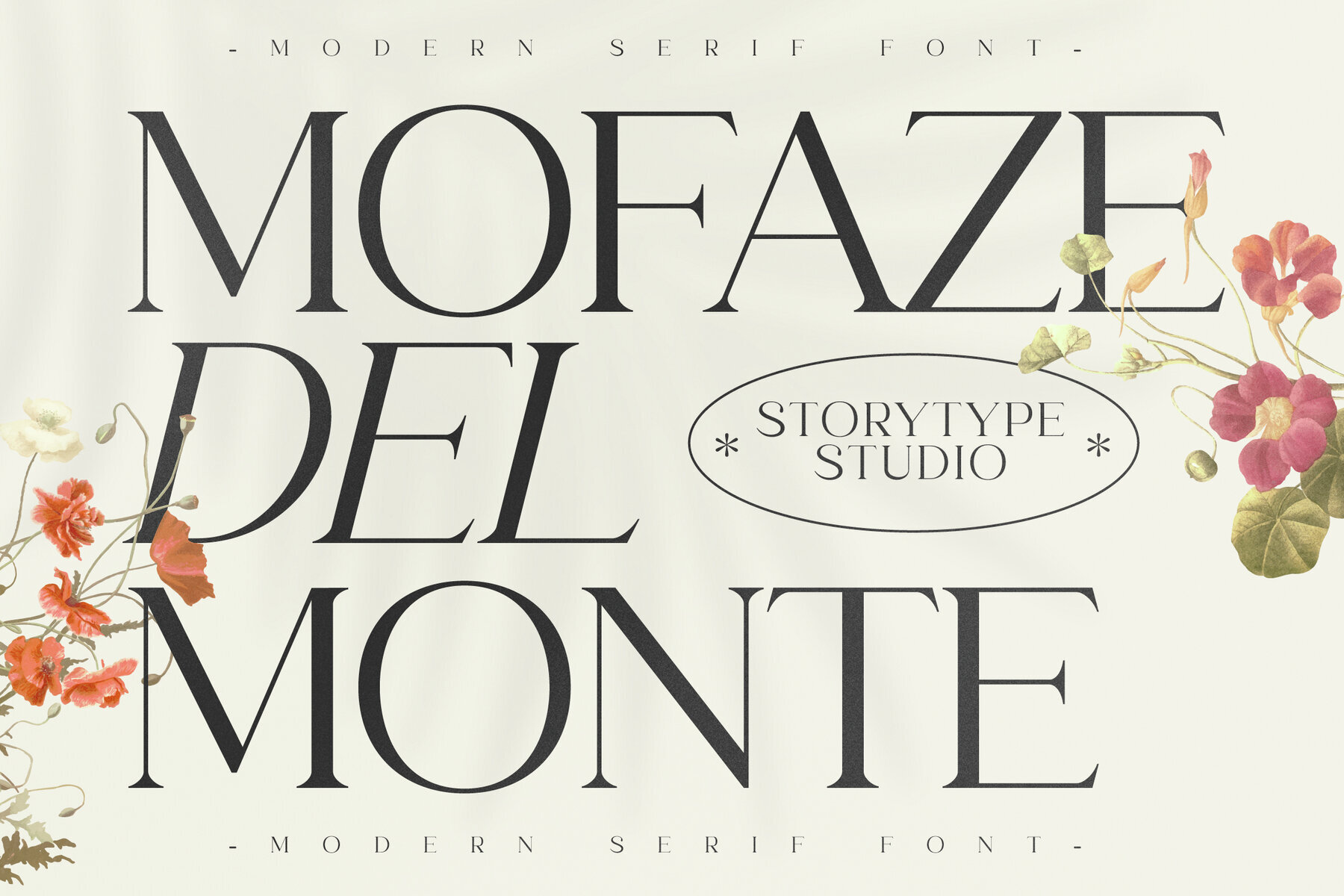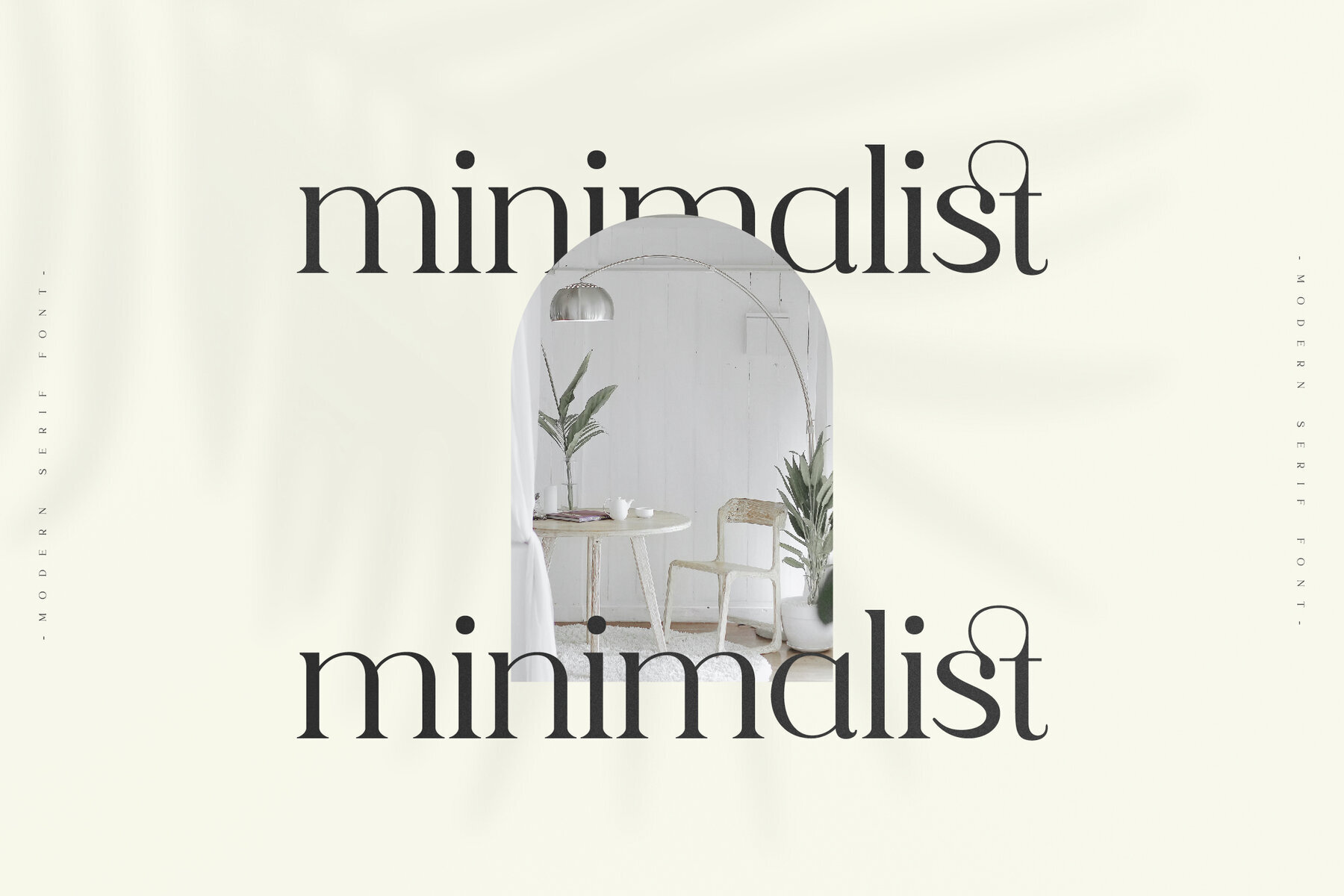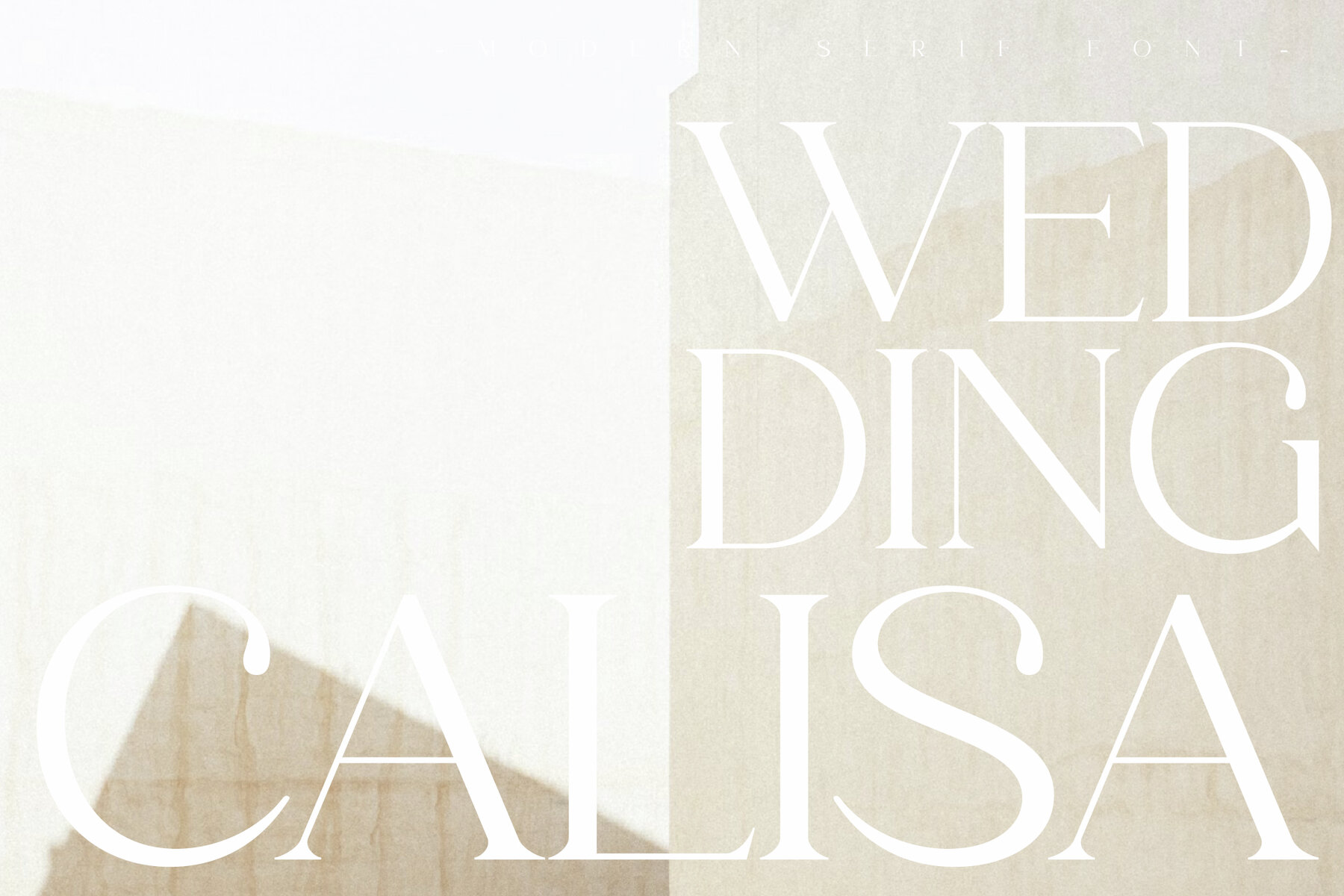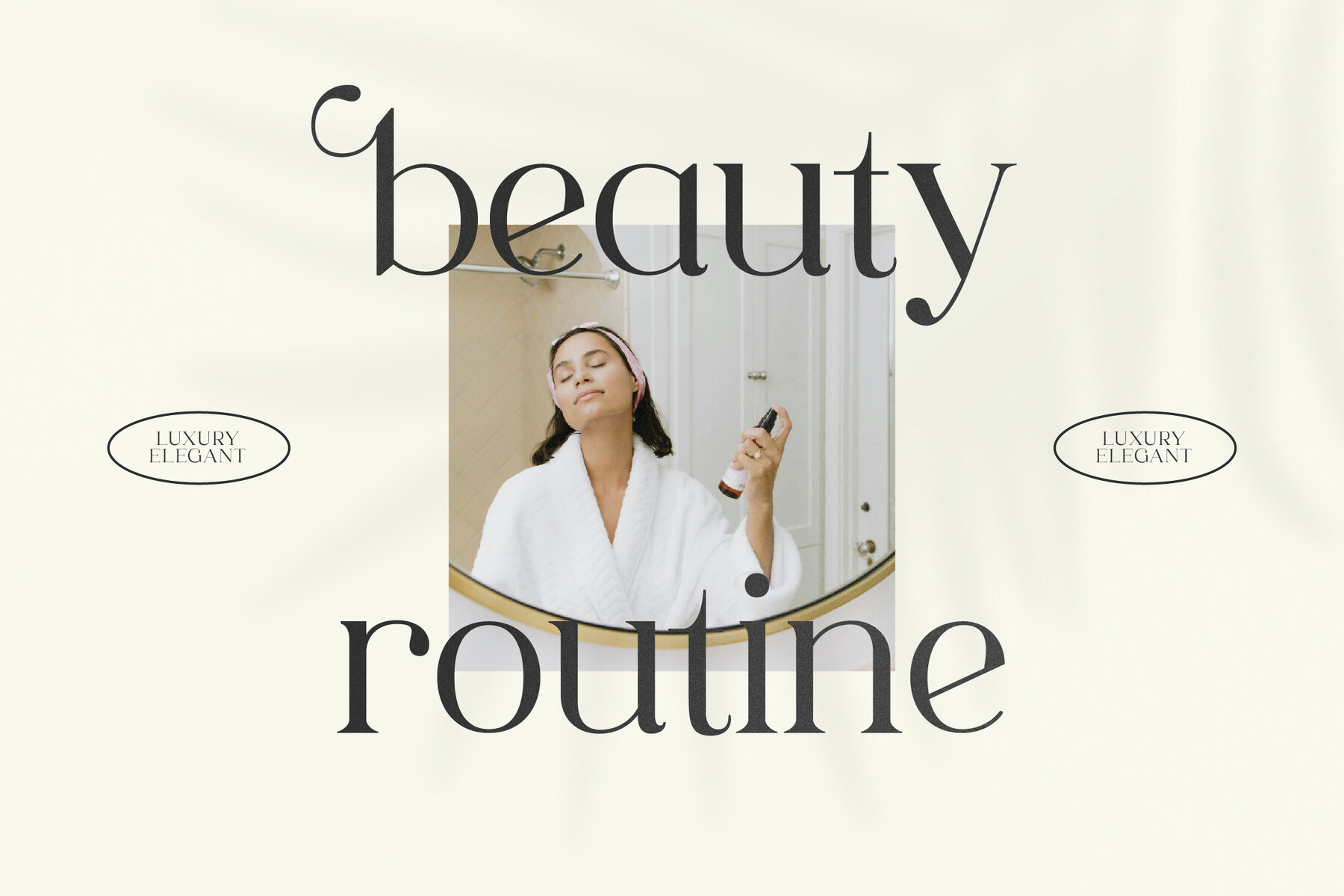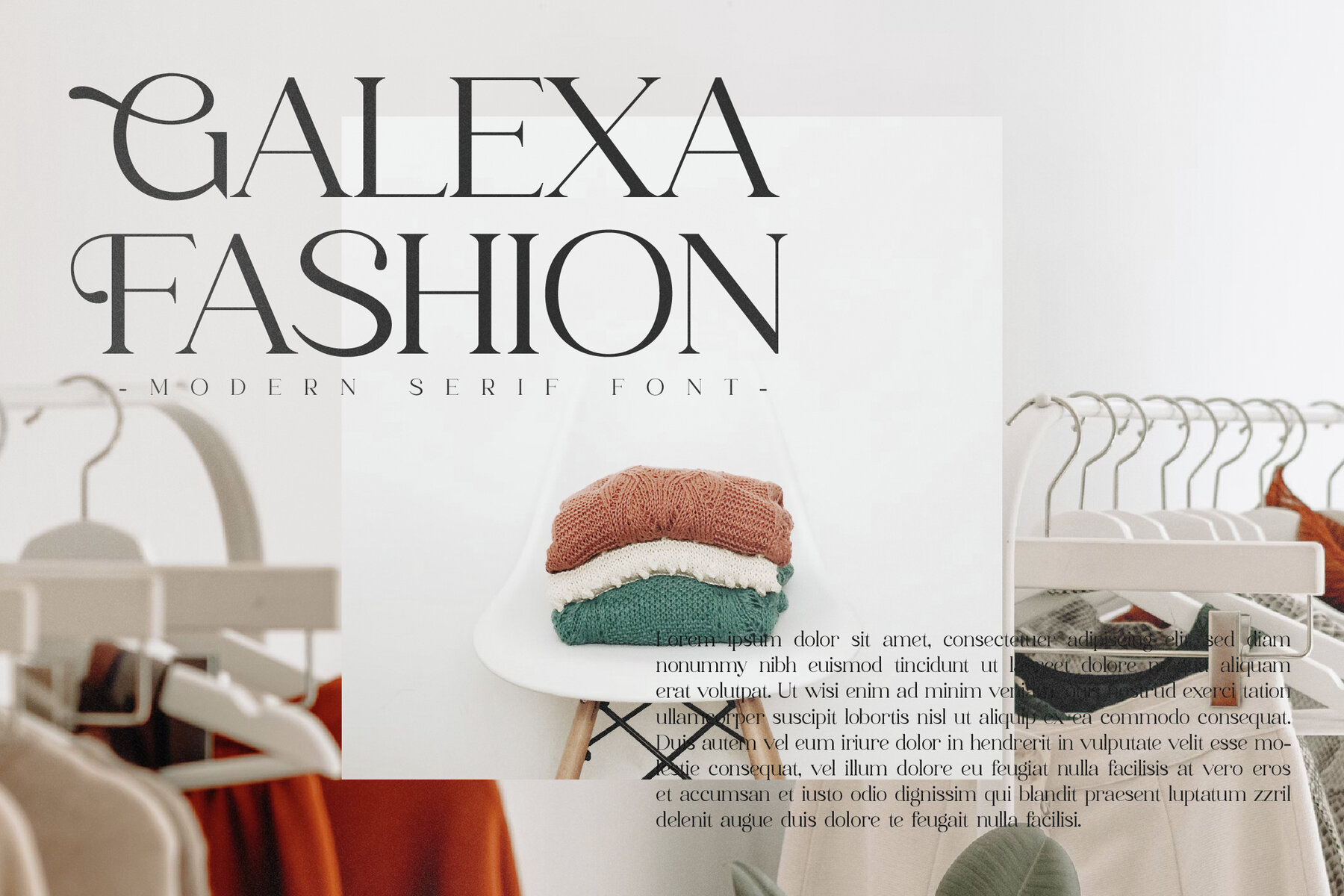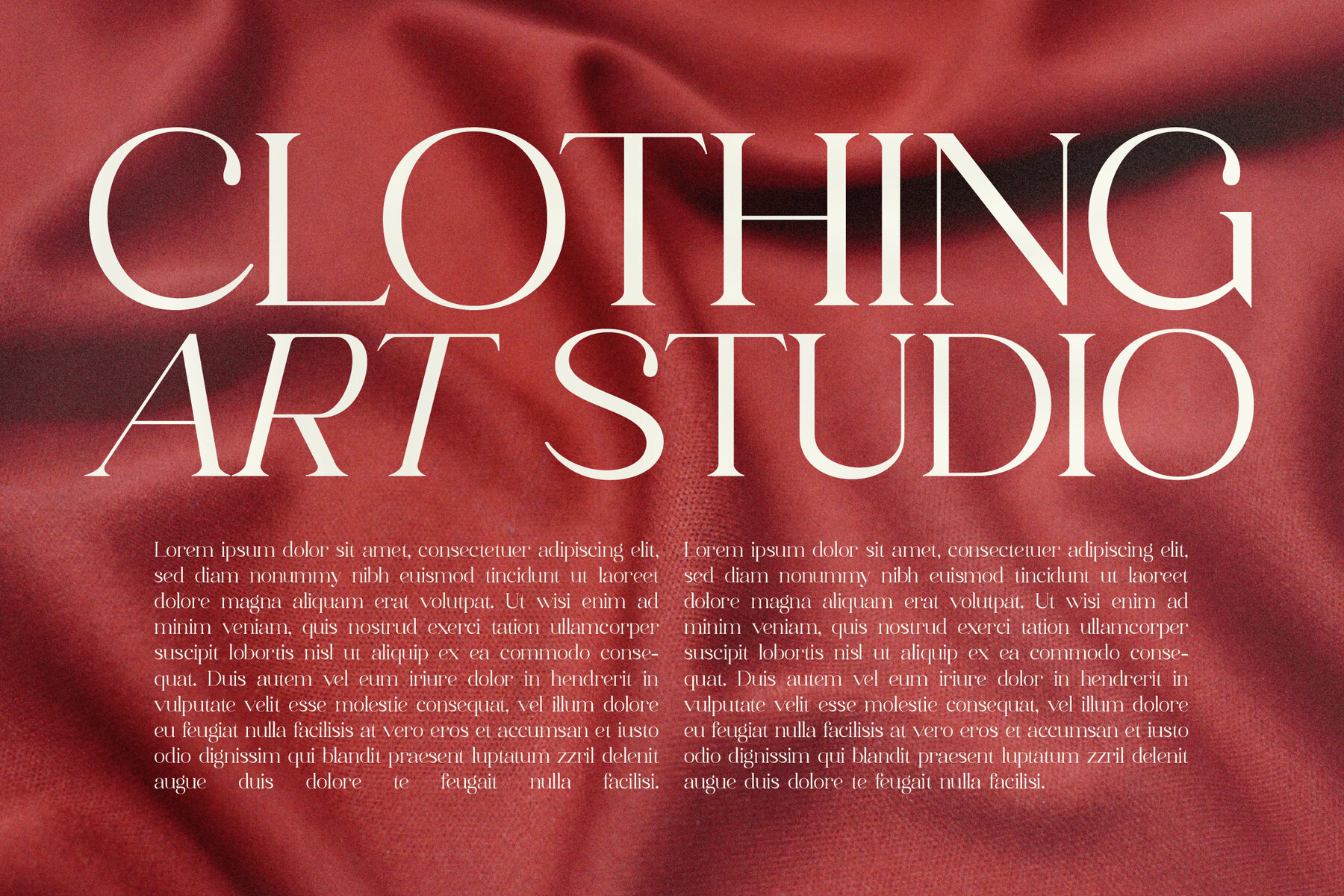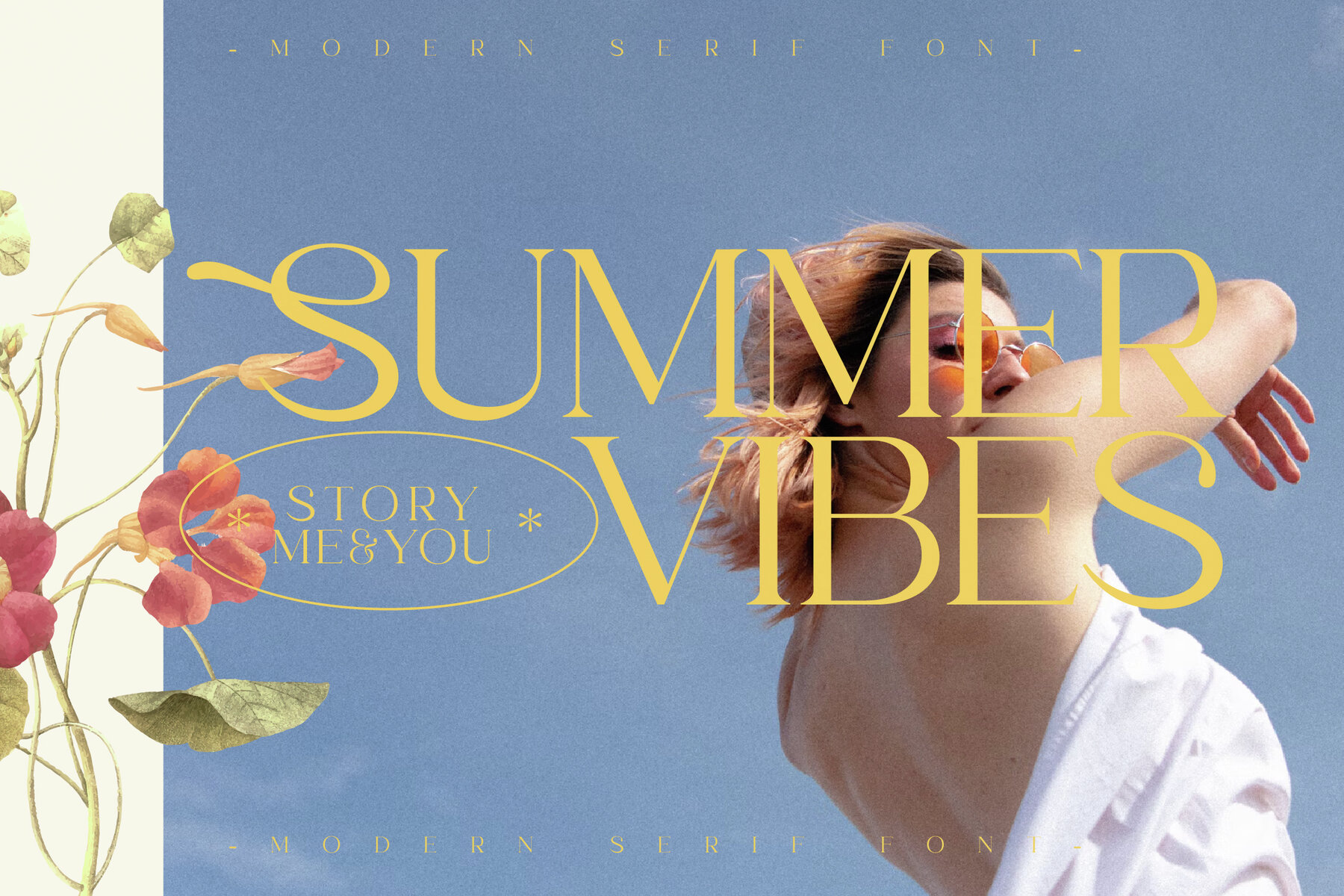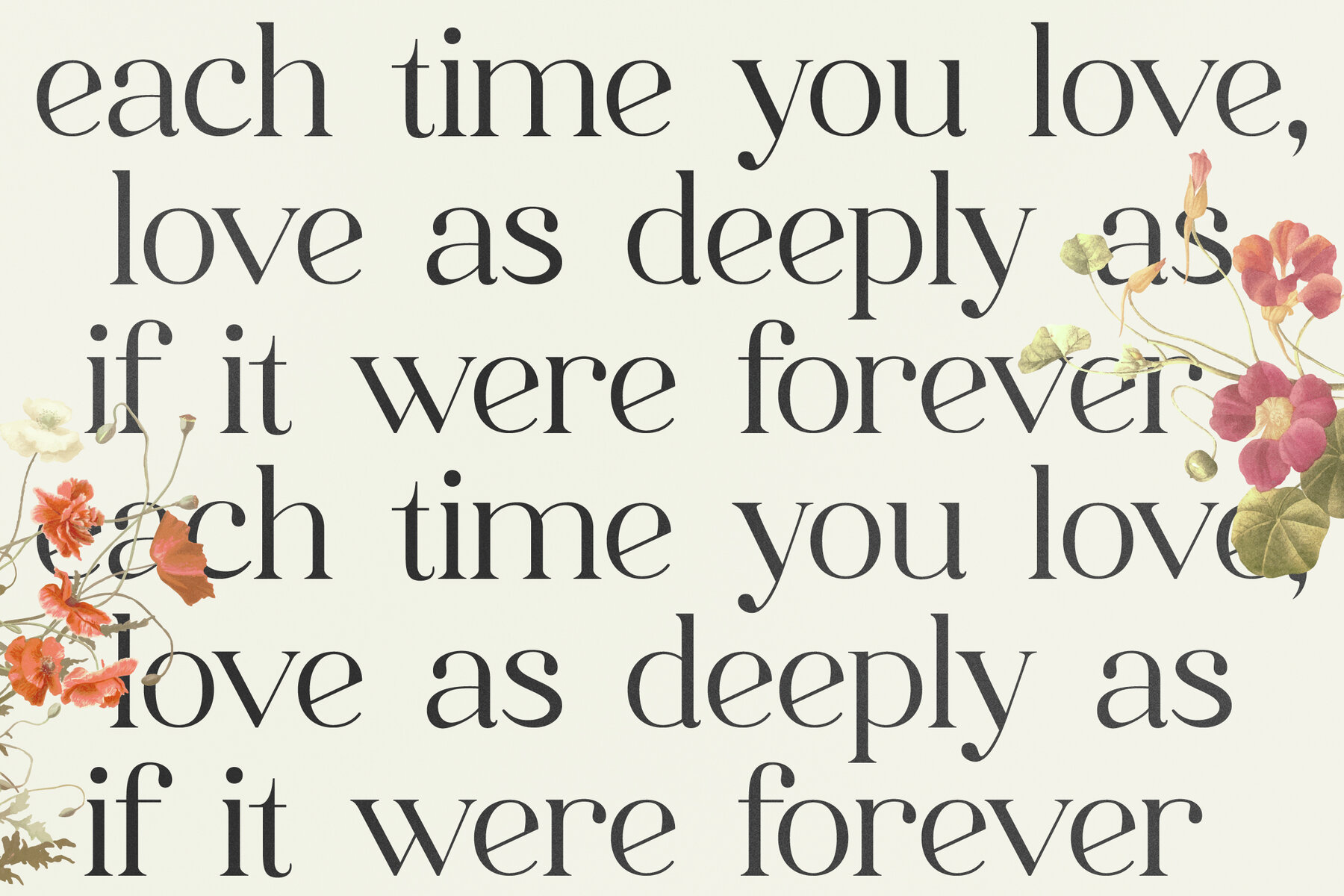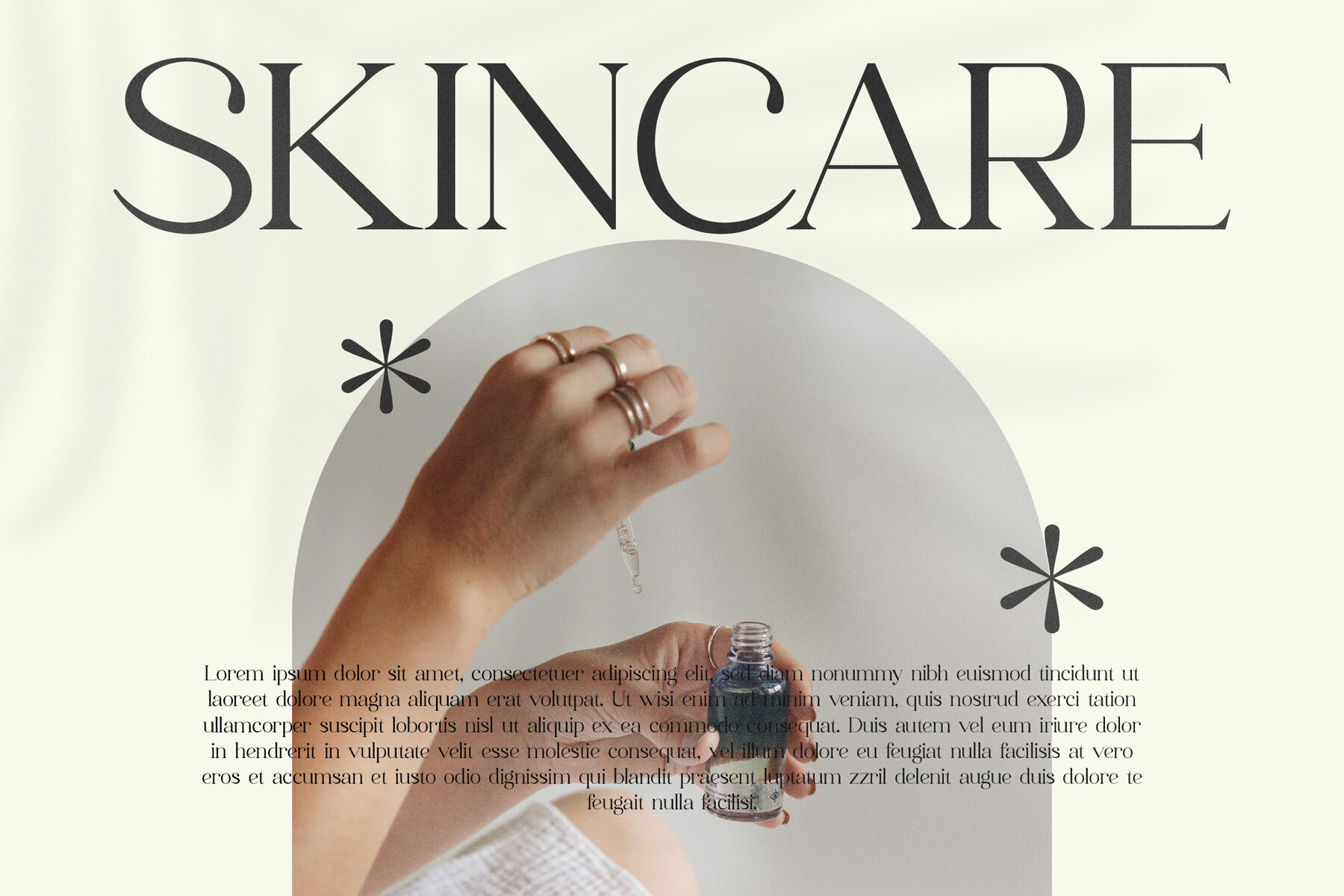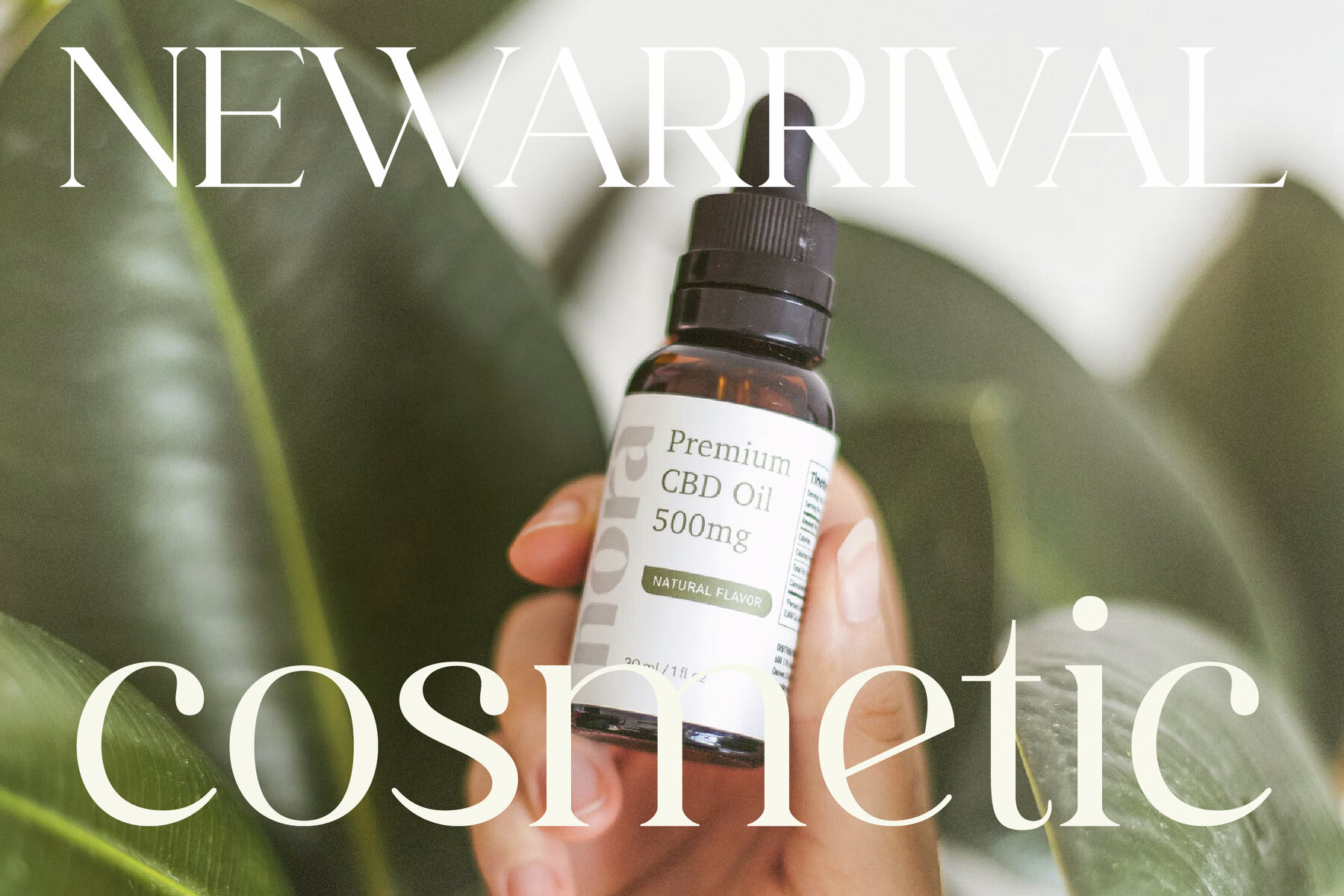
Mofaze Del Monte Font
The Mofaze Del Monte font exudes elegance with its high-contrast serif design, offering a refined and luxurious appearance. With its modern transitional style, it's perfect for creating impactful headlines, fashion editorials, and sophisticated premium branding. Its ornamental and floral elements make it ideal for projects seeking a touch of grace and formality. What’s Included: